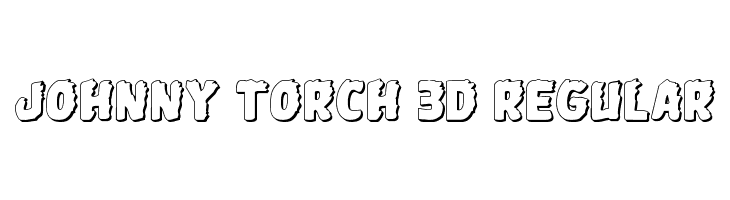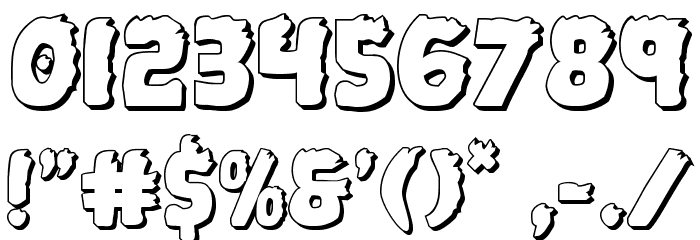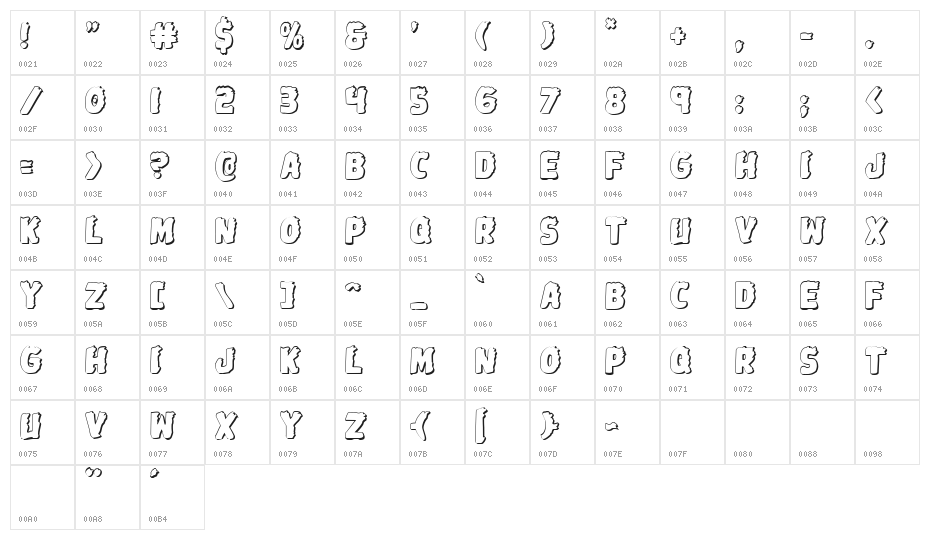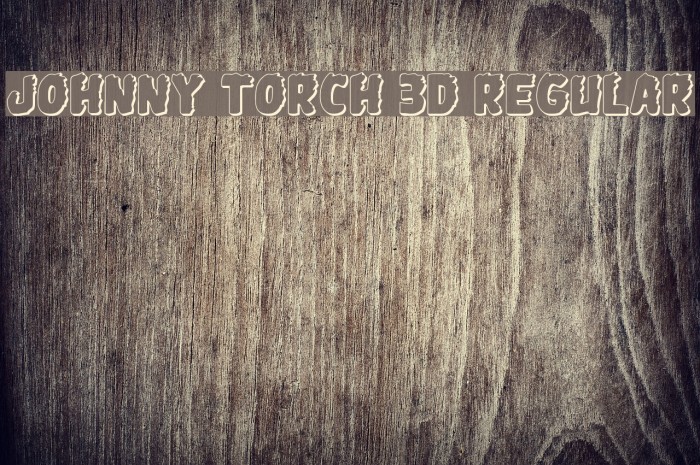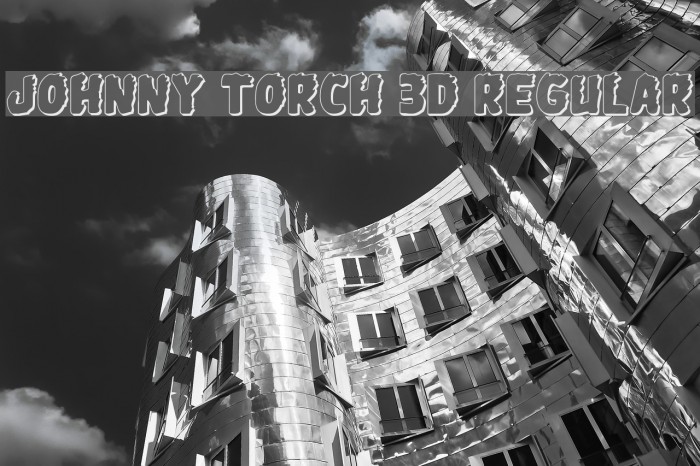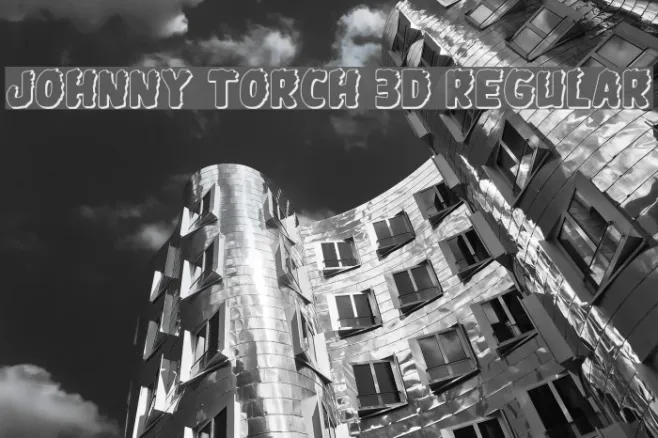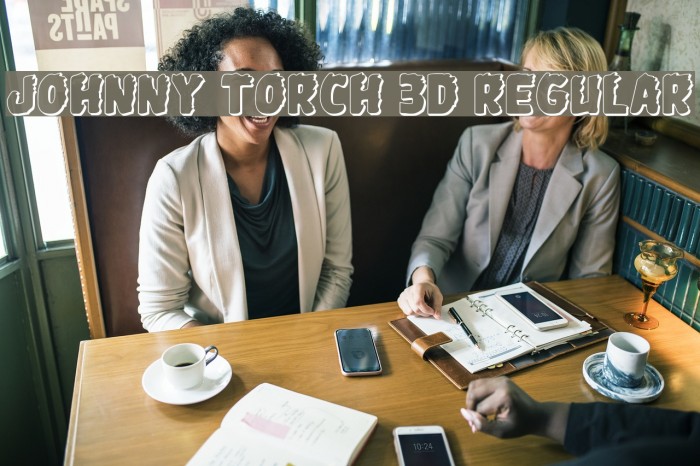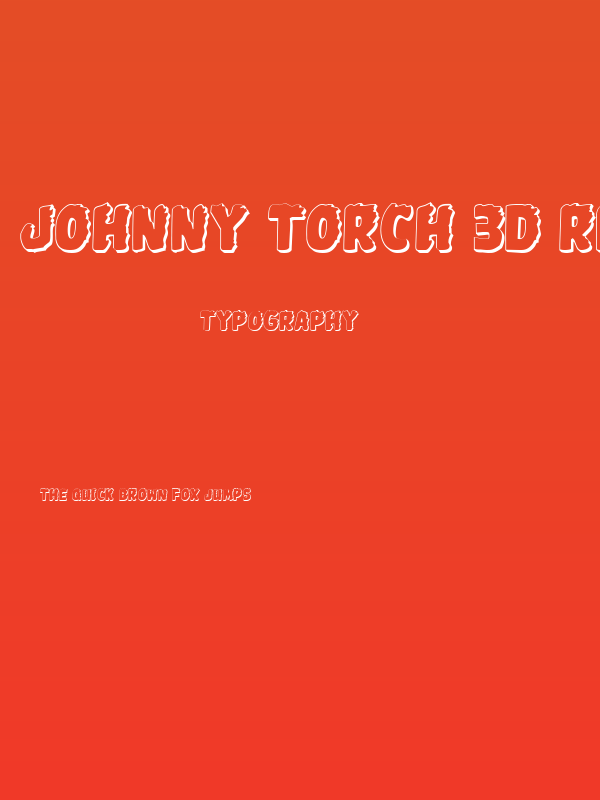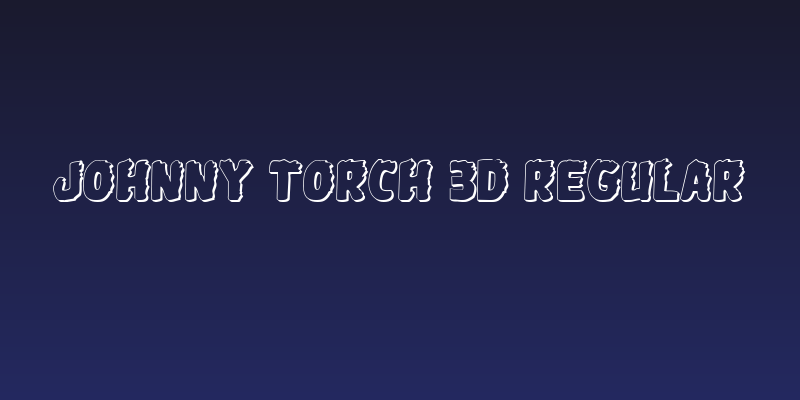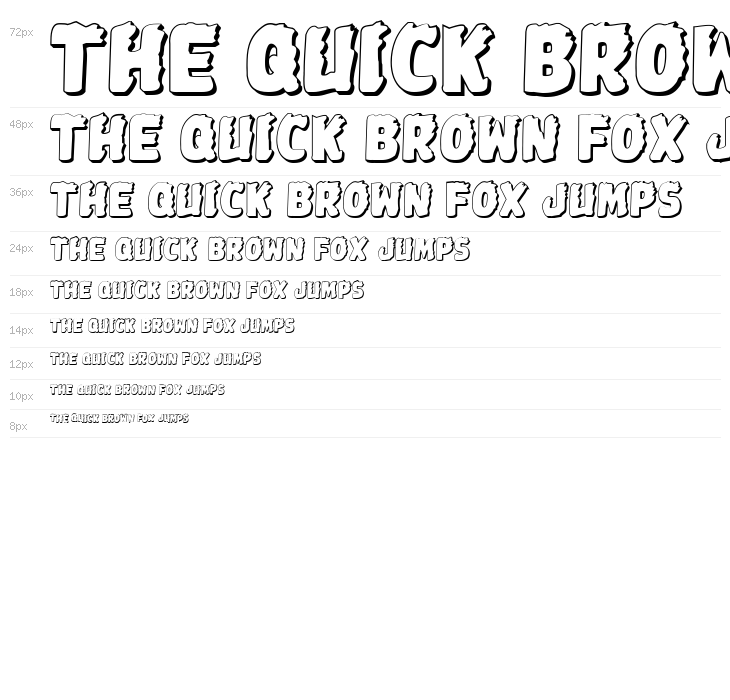
Johnny Torch 3D Regular Font
Johnny Torch 3D Regular Description
This font features a bold, playful 3D effect with a cartoonish style. The letters are outlined with a thick black border, giving them a dynamic and eye-catching appearance. The characters are rounded and slightly irregular, adding to the whimsical feel. The font is highly decorative, making it suitable for projects that require a fun and engaging look. It includes a full set of uppercase and lowercase letters, numbers, and a variety of special characters, all maintaining the same lively style.
| Overall Style | Playful, Cartoonish, Decorative |
| Use Case | Headlines, Posters, Logos |
| Proposed Projects | Ideal for children's book covers, comic titles, playful posters, and any design needing a fun, lively touch. |